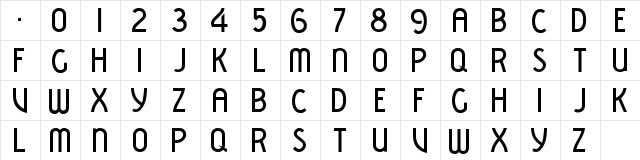
RemcoVermarco XPDF Regular
Design Context for RemcoVermarco XPDF Typeface
RemcoVermarco XPDF takes a measured approach to typography — its balanced proportions and neutral character make it a reliable workhorse for both digital and print work.